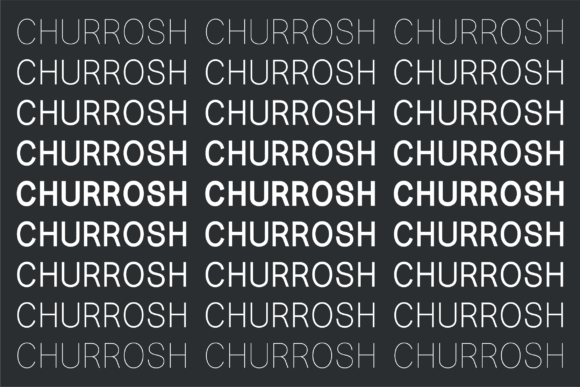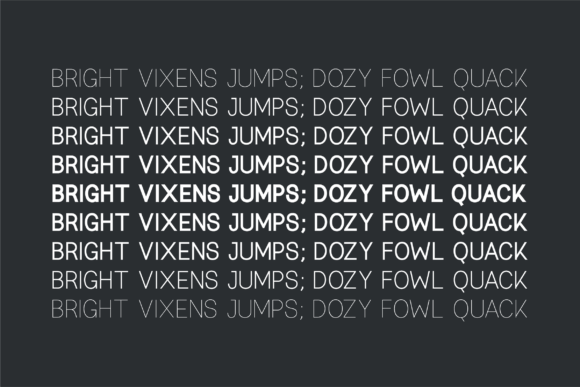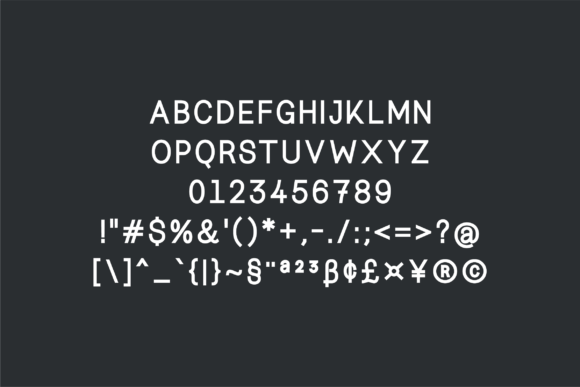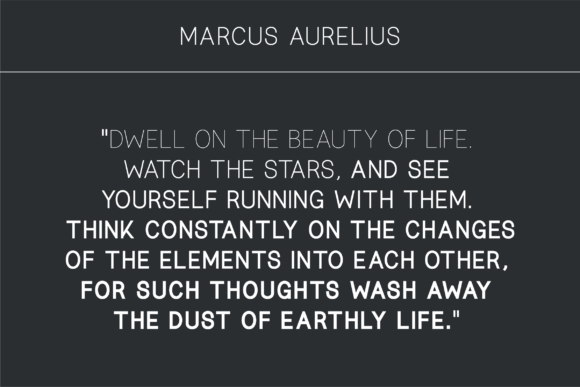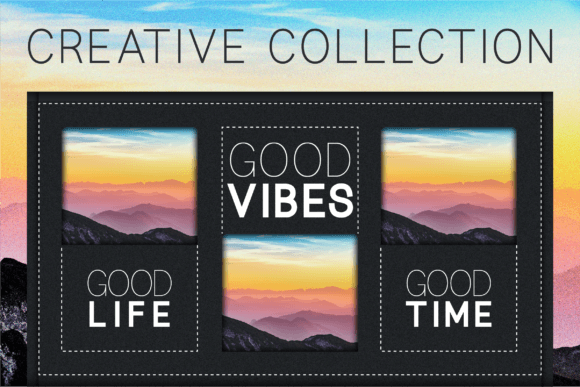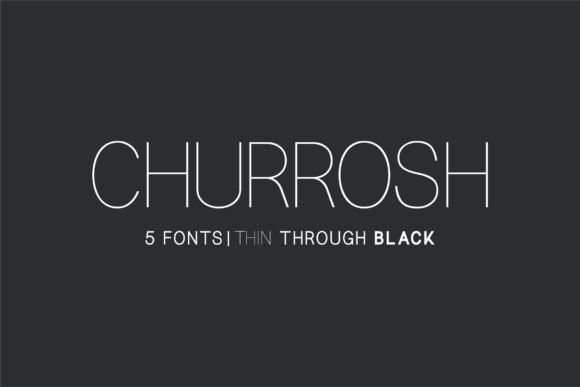
Introducing Churrosh Font: Elevate Your Designs with Elegance and Sophistication
In the world of typography, fonts play a crucial role in conveying the message and aesthetic of a brand. For designers and crafters, finding the perfect font that embodies elegance, sophistication, and versatility can be a daunting task. However, if you’re looking for a font that checks all these boxes and more, look no further than Churrosh Font. With its smooth and clean lines, and just a touch of contrast, Churrosh works beautifully for logos, branding, and web headings, making it an excellent addition to your typographic arsenal.
The Characteristics of Churrosh Font
Churrosh Font boasts a range of characteristics that make it an attractive choice for designers and crafters. Its smooth and clean lines provide a crisp and modern look, while the subtle contrast adds a touch of sophistication and elegance. This font is perfect for projects that require a high level of professionalism and refinement, such as luxury branding, high-end product design, and elegant web design.
One of the standout features of Churrosh Font is its versatility. Whether you’re designing a logo, creating a brand identity, or crafting web headings, this font adapts seamlessly to various design applications. Its clean and modern aesthetic makes it suitable for a wide range of industries, from fashion and beauty to technology and finance. With Churrosh Font, you can create stunning designs that exude professionalism and style.
Why Choose Churrosh Font?
So, why should you choose Churrosh Font for your design projects? Here are just a few compelling reasons:
• Elegance and Sophistication: Churrosh Font exudes elegance and sophistication, making it perfect for high-end designs and luxury brands.
• Versatility: This font is incredibly versatile and can be used for a wide range of design applications, from logos and branding to web headings and more.
• Clean and Modern Aesthetic: Churrosh Font features clean and modern lines, making it perfect for designs that require a crisp and contemporary look.
• Easy to Read: The subtle contrast and smooth lines of Churrosh Font make it easy to read, even at small sizes.
Tips for Using Churrosh Font
To get the most out of Churrosh Font, here are a few tips to keep in mind:
• Pair it with Other Fonts: Churrosh Font works beautifully when paired with other fonts. Experiment with different combinations to create stunning contrast and visual interest.
• Use it for Headings and Titles: The elegant and sophisticated aesthetic of Churrosh Font makes it perfect for headings and titles. Use it to add a touch of luxury to your designs.
• Experiment with Colors and Textures: Don’t be afraid to experiment with different colors and textures when using Churrosh Font. This font looks stunning in a range of colors and can add a touch of sophistication to your designs.
Font Name Churrosh Font
Author Huntype
In conclusion, Churrosh Font is an exceptional choice for designers and crafters looking for a font that embodies elegance, sophistication, and versatility. With its smooth and clean lines, and just a touch of contrast, Churrosh works beautifully for logos, branding, and web headings. Whether you’re designing a luxury brand, creating a high-end product, or crafting elegant web design, Churrosh Font is the perfect addition to your typographic arsenal.